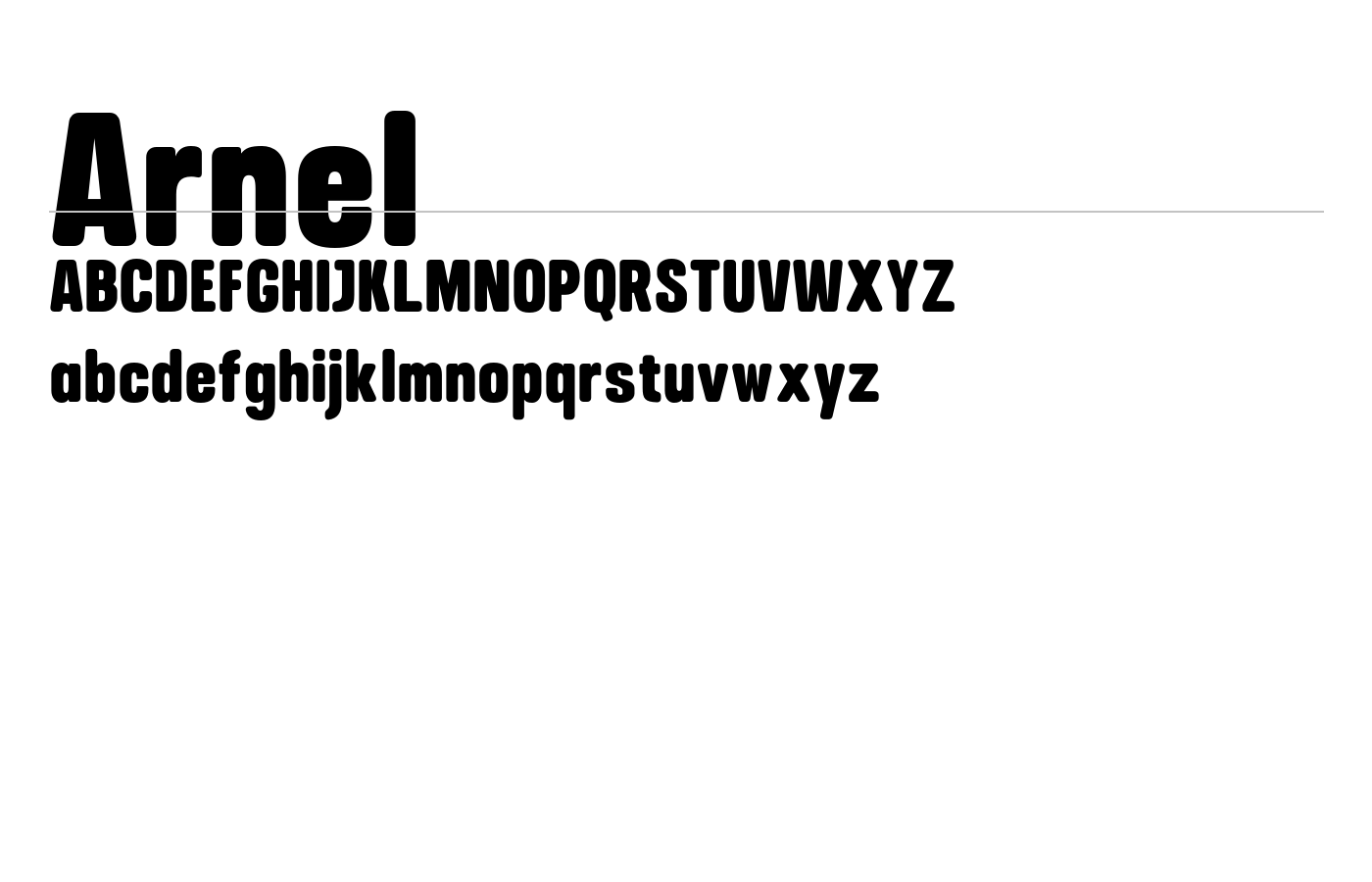
Arnel is a bold, condensed sans-serif font with a strong, friendly presence, featuring rounded corners and consistent stroke weight that give it a modern yet approachable feel. Its compact letterforms and clear readability make it ideal for impactful headlines, branding, and signage where a confident, straightforward tone is needed. Perfect for designs seeking a balance of strength and warmth, Arnel works well in both digital and print contexts.
Arnel Font